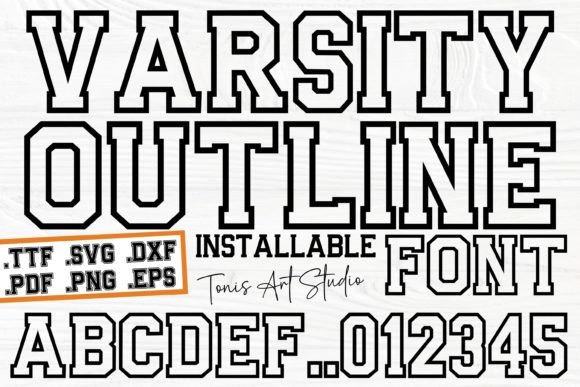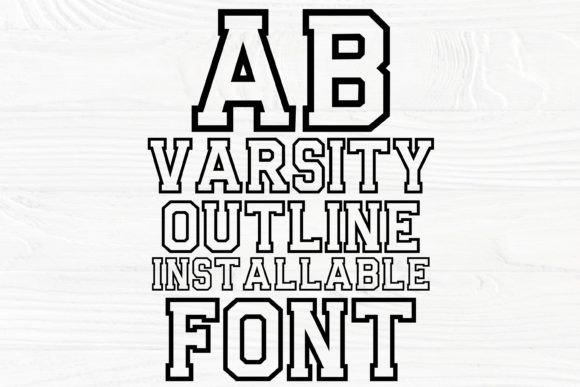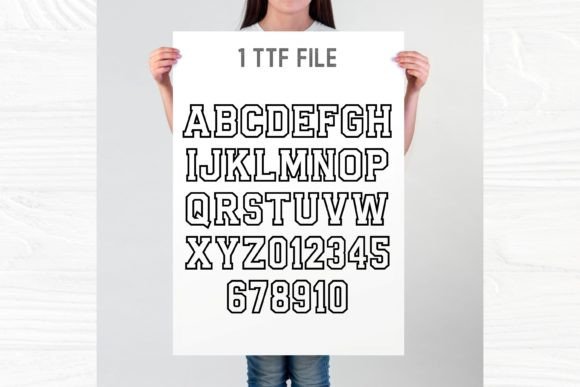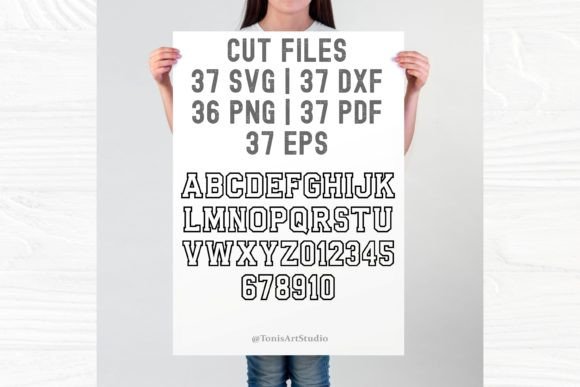
About the Ab Varsity Outline Font
Let us introduce you to Ab Varsity Outline Font, where timeless design meets modern craftsmanship. Add a classic touch to your crafting projects with this versatile varsity font svg! This listing includes Varsity Outline Font SVG TTF files, perfect for adding a sporty look to any design. Use these varsity letters to create customized college-inspired artwork, team logos, or apparel designs. Get your hands on this must-have collection and elevate your creations with a touch of timeless style.
Ab Varsity Outline Font is ideally suited for headlines, logos, and short, impactful text within branding materials or posters. Its bold, slightly playful nature makes it perfect for projects targeting a youthful or sporty audience. Avoid using it for body text or long paragraphs; its outlined style can reduce readability at smaller sizes.
Consider pairing Ab Varsity Outline with a clean sans-serif like Open Sans for body copy to create contrast and balance. For a more retro feel, a geometric sans-serif such as Futura would also complement its varsity style. Alternatively, a subtle serif like Merriweather could lend a touch of sophistication.
The font’s overall personality is energetic and confident, suggesting themes of sport, college life, or brands promoting a sense of youthful dynamism.